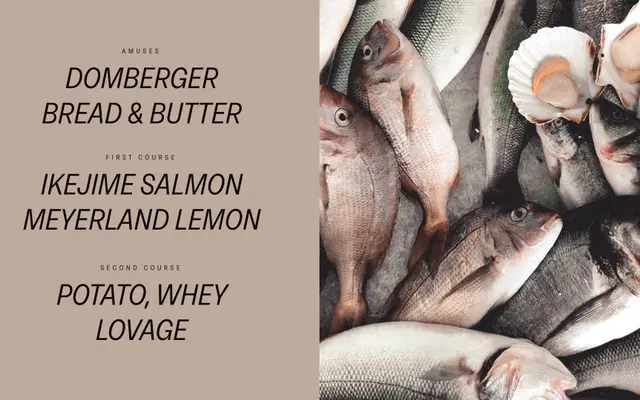
Neue Rational Narrow
Studio Rene Bieder · Rene Bieder
Neue Rational Narrow specimen from Studio Rene Bieder
A narrow geometric sans in nine weights with matching italics, offering a range of OpenType alternates for letterform customisation.
Spanning Thin to Black with italic companions at every weight, this condensed geometric sans is built for space-efficient typesetting without sacrificing character. OpenType features include tabular and proportional figures, fractions, discretionary ligatures and case-sensitive forms, alongside character alternates for a, g, y and t. The narrow width makes it well suited to editorial layouts, data-heavy interfaces and branding work where column economy matters.
A narrow-cut geometric sans with clean, rational letterforms and extensive OpenType alternates, fitting squarely in the geometric sans tradition with a condensed width orientation.